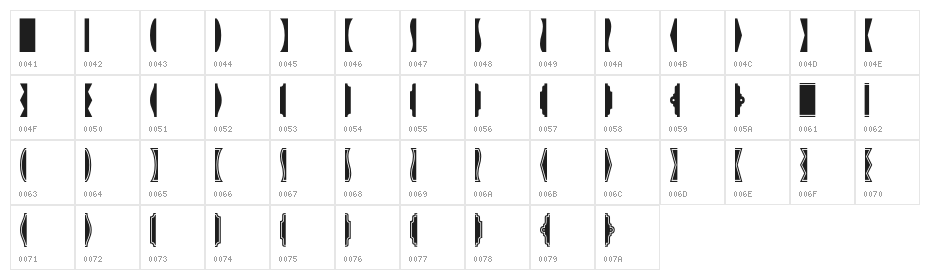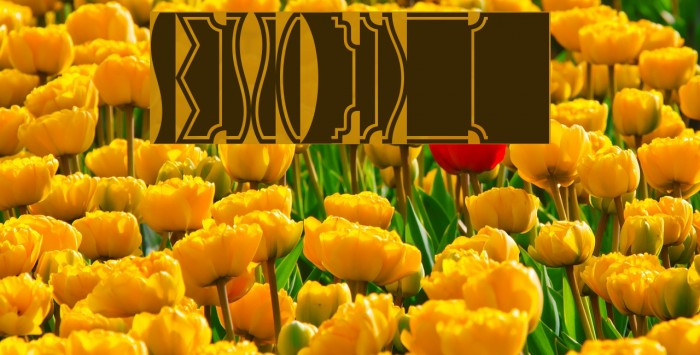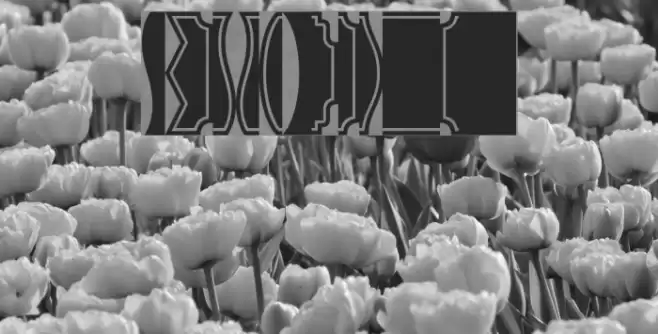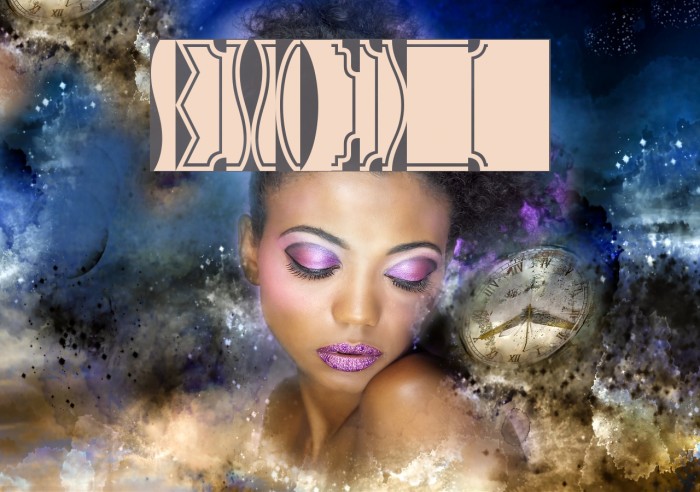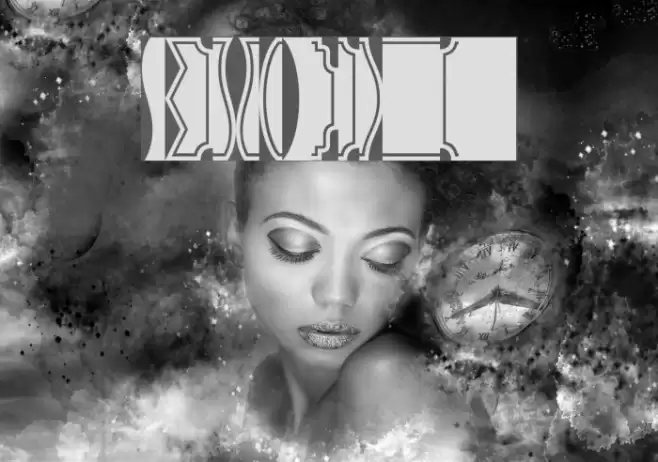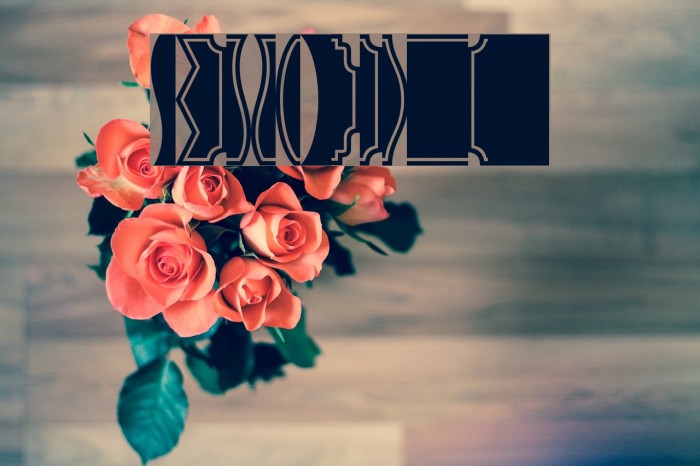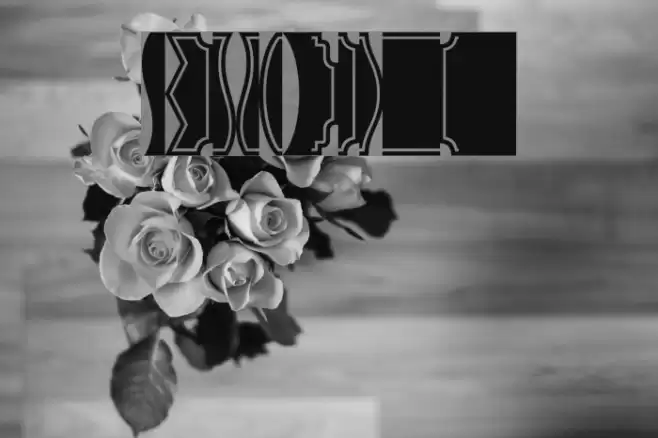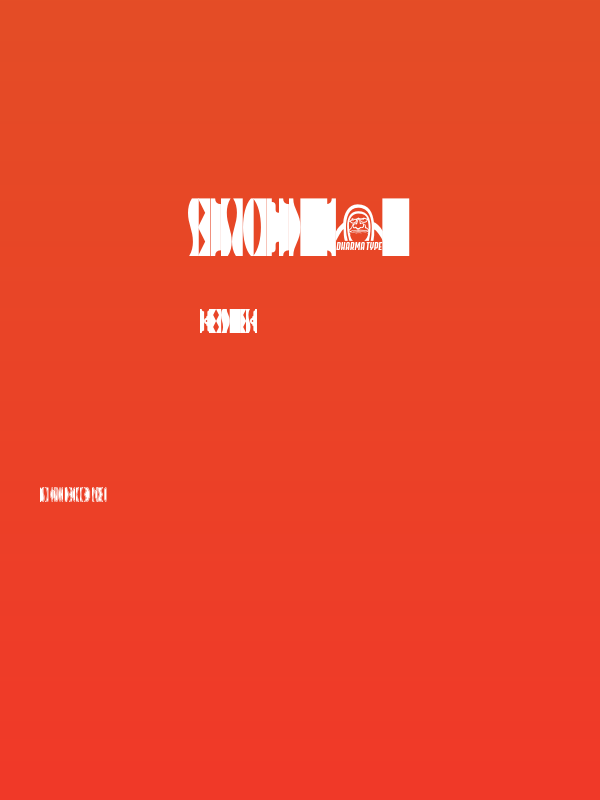
GothicExtras-A Font
GothicExtras-A Description
This design features a collection of decorative elements rather than a traditional font. The shapes are bold and geometric, with a strong emphasis on symmetry and repetition. The elements include a variety of abstract forms, such as diamonds, curves, and intricate patterns, which are ideal for creating borders, frames, or ornamental accents. The design is visually striking, with a high contrast between the solid black shapes and the negative space, making it suitable for attention-grabbing projects.
| Use Case | Ornamental design, Borders, Frames |
| Proposed Projects | Ideal for creating decorative borders, frames, or ornamental accents in graphic design projects. |